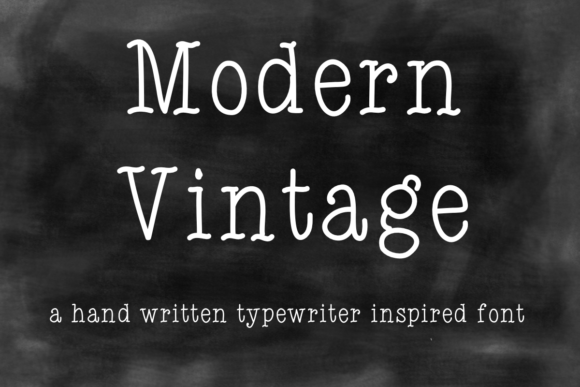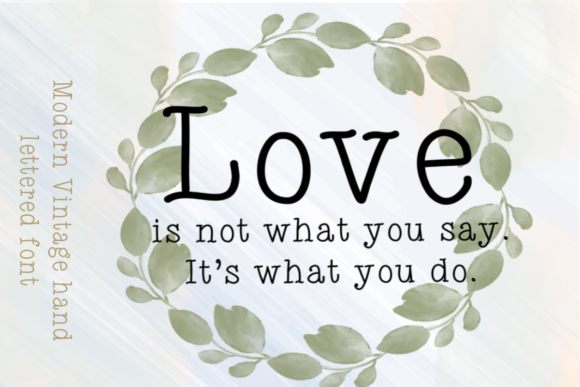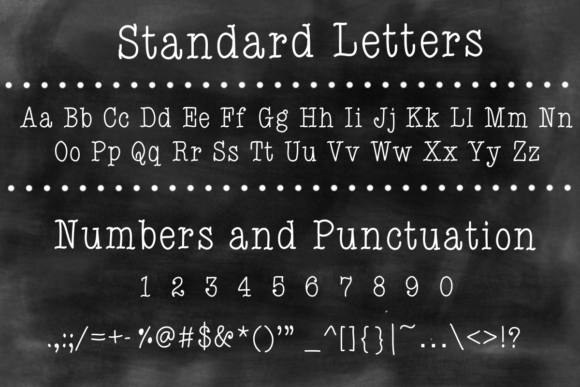
HomeScript FontsModern Vintage Font Script Fonts Modern Vintage Font FacebookXPinterestWhatsApp Modern Vintage Font Poster 2 Modern Vintage Font Poster 3 About Modern Vintage Font Modern Vintage combines retro letters with a contemporary style, making it an extremely versatile font. DOWNLOAD ON CREATIVE FABRICAThis font is sold and delivered by Creative Fabrica. Font Canyon may earn a commission if you buy through this link. People also explored Equinox Font Marlita Font Pumpkin Font Milk Drink Font Contoursy Signature Font Rigel Font Sea Beach Font Hondo Cherish Font 306 0 TagsModern Vintage Font Previous articleSleeping Wild FontNext articleHisteria Script Font LEAVE A REPLY Cancel reply Comment: Please enter your comment! Name:* Please enter your name here Email:* You have entered an incorrect email address! Please enter your email address here Website: Save my name, email, and website in this browser for the next time I comment. Personal Use Free Roustel Personal Use Free Read more about this font Susanna Personal Use Free Read more about this font BD Fluke Personal Use Free Read more about this font Bethania Personal Use Free Read more about this font BLOG 5 Fonts That Will Dominate Design Trends in 2026 5 Fonts for 2026 That Will Dominate Design Trends Typography plays a critical role in visual communication, and as we look ahead to 2026, it’s... How to Cut Any Font on Cricut: Convert a Font to SVG (Free) Best Fonts for YouTube Videos: Make Your Thumbnails Stand Out Exploring Font Trends